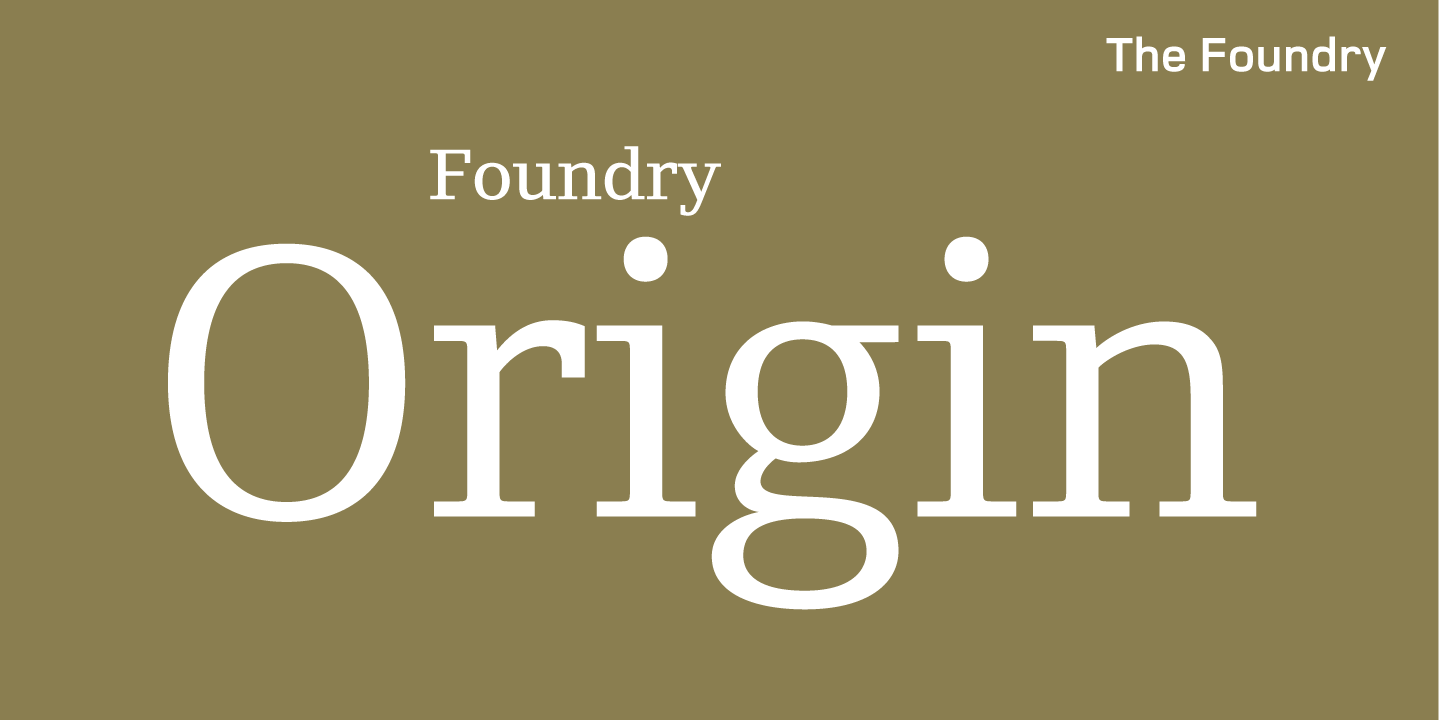
Foundry Origin Font is excellent for industrial design applications including manufacturing branding, engineering documentation, metalworking company logos, industrial equipment signage, construction firm identity, heavy machinery graphics, foundry operations marketing, and technical specification materials. This robust typeface captures the strength and precision of industrial craftsmanship and metal fabrication traditions.
What makes Foundry Origin Font exciting is its authentic representation of industrial heritage through solid letterforms that embody the strength and reliability of metalworking and manufacturing processes. The font features sturdy construction with precise angles and robust proportions that communicate durability and technical expertise. Its industrial character appeals to audiences who value craftsmanship, precision, and manufacturing excellence.
The Foundry Origin Font family includes various industrial styles such as Regular, Bold, Condensed, and Heavy variations that enhance the manufacturing aesthetic. These robust options provide comprehensive design solutions for creating authentic industrial brand identities that celebrate metalworking traditions and contemporary manufacturing excellence.
This specialized industrial typeface brings genuine manufacturing authenticity to contemporary design projects. Industrial companies and manufacturing firms choose Foundry Origin Font Free Download for its exceptional ability to communicate strength and technical precision. The font's foundry inspiration makes it perfect for metalworking shops, engineering firms, and industrial manufacturers that want to project reliability and craftsmanship expertise. Its solid character ensures memorable brand recognition while maintaining the authentic aesthetic that defines exceptional industrial design work.